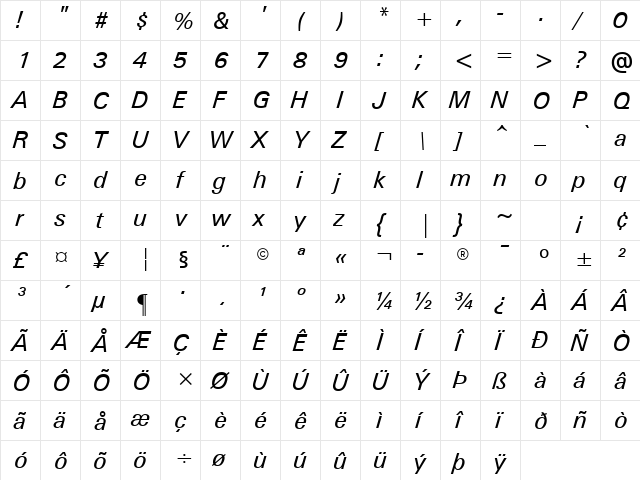
Univers ATT Italic
Design Context for Univers ATT Typeface
Univers ATT offers clean, dependable letterforms without strong stylistic allegiance, making it a practical choice for designers who need flexibility. The slanted form adds forward momentum and visual energy.
Pro Tip: Try Univers ATT for annotation and caption copy alongside an upright companion — the contrast in angle creates a dynamic but ordered typographic system.